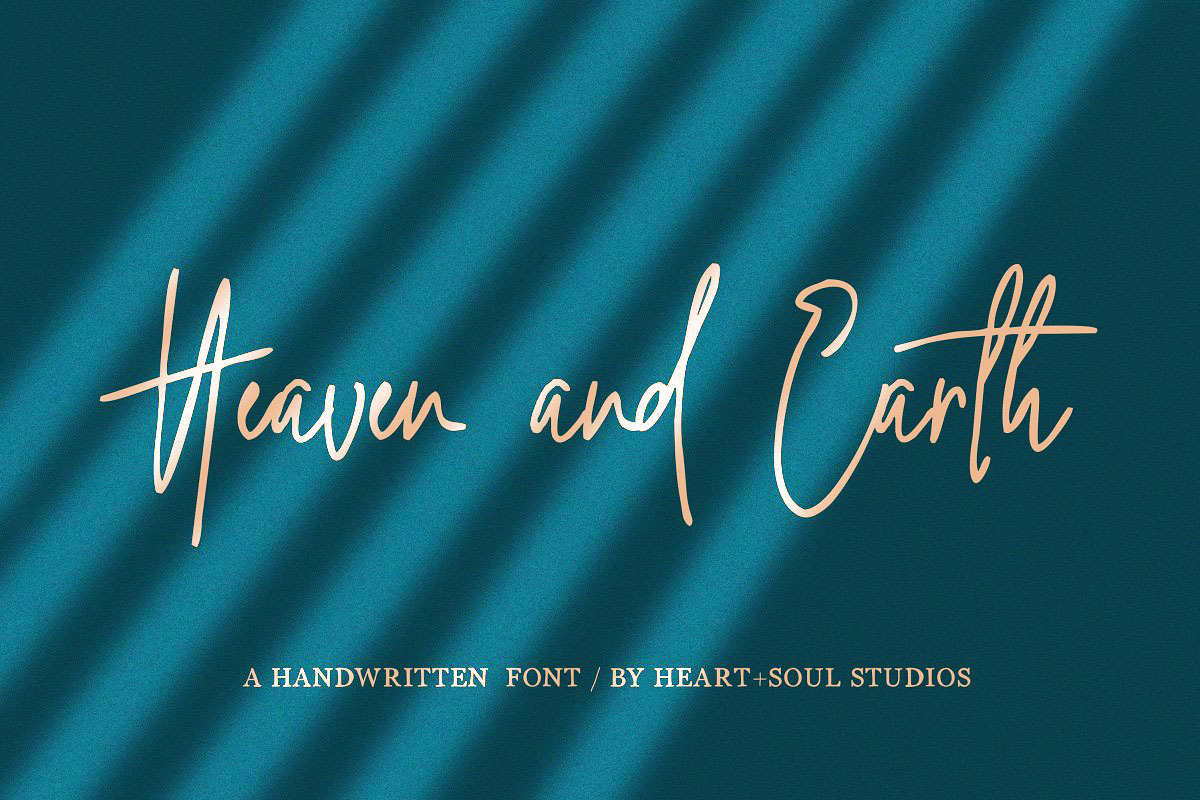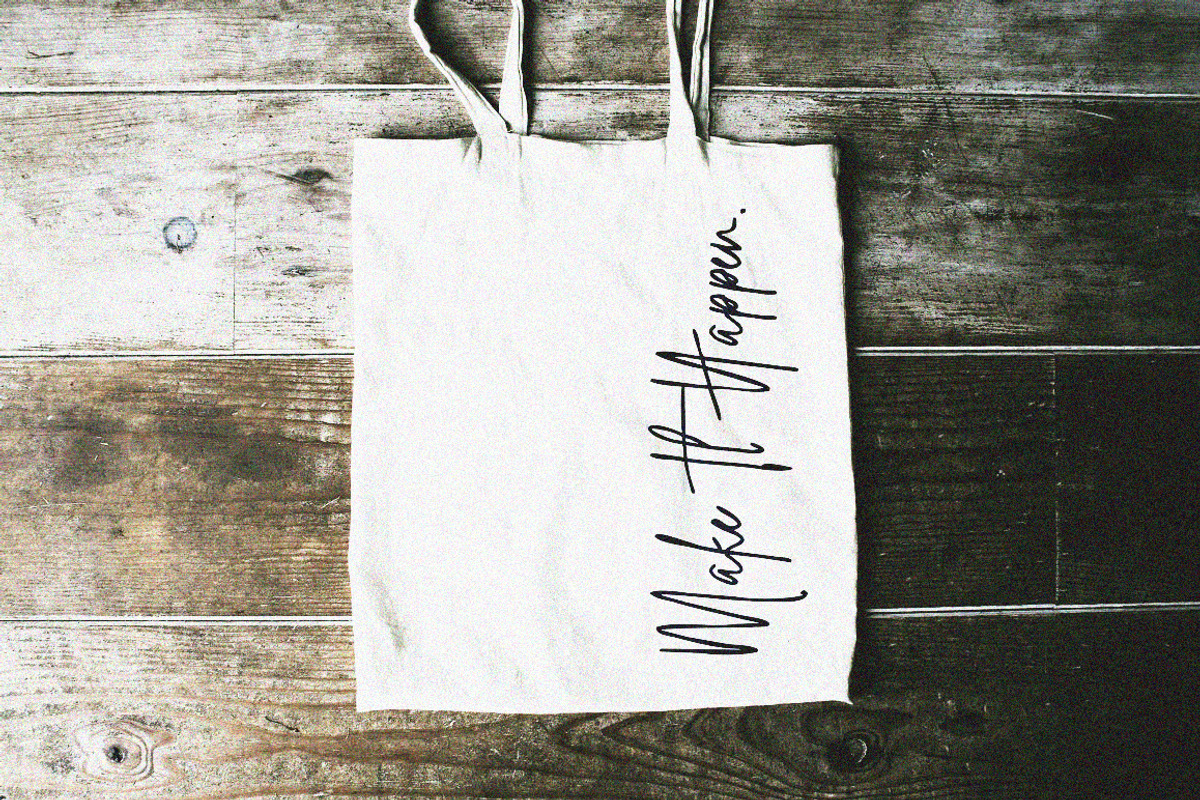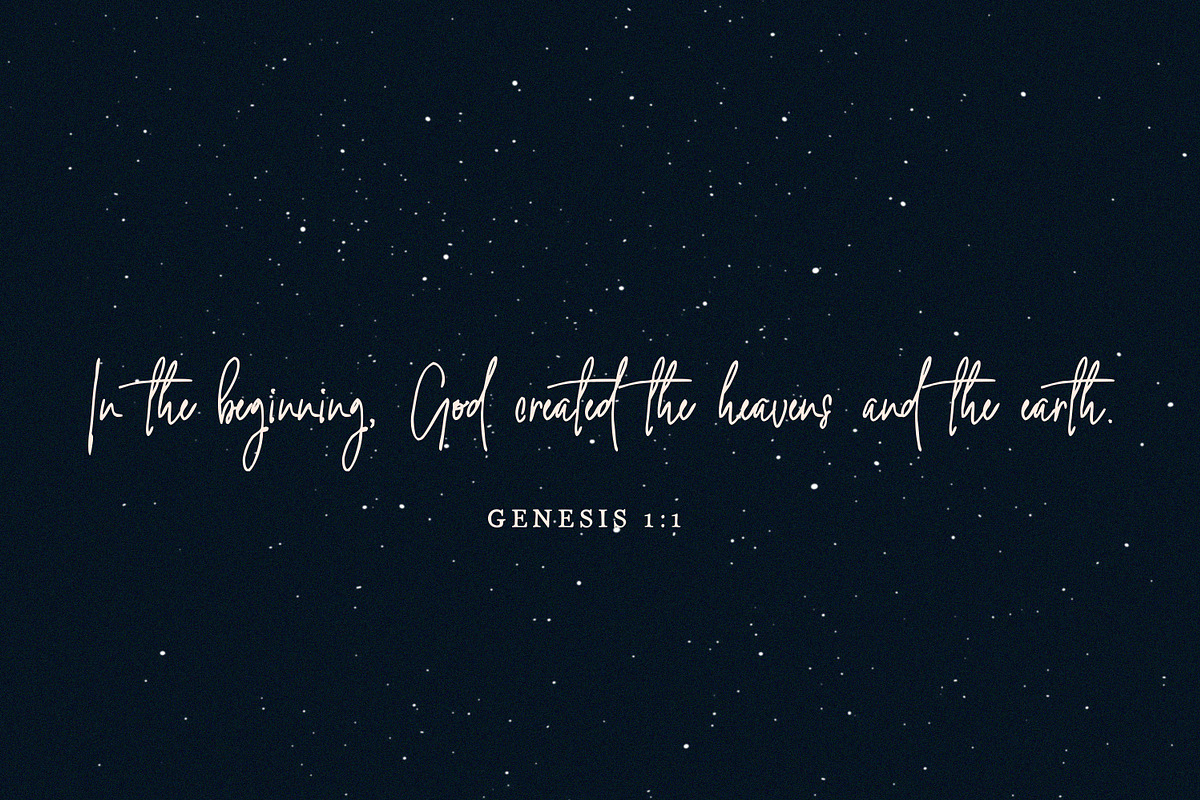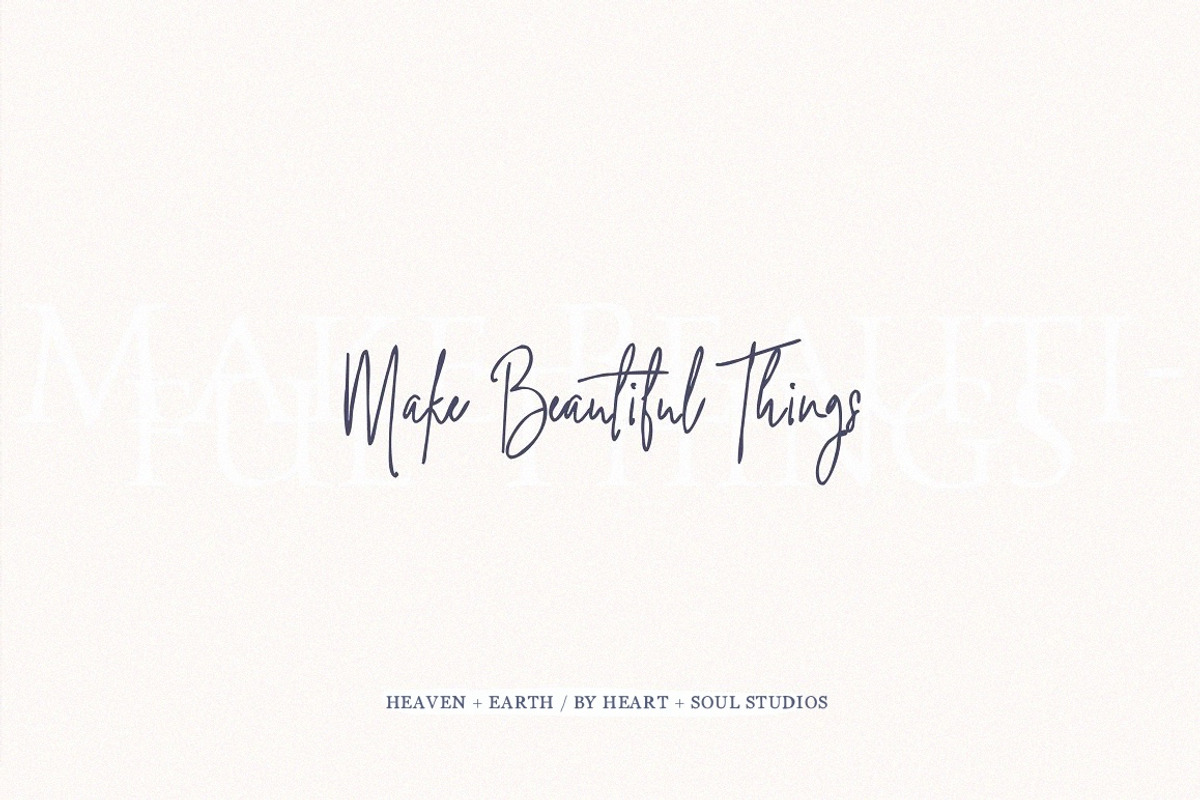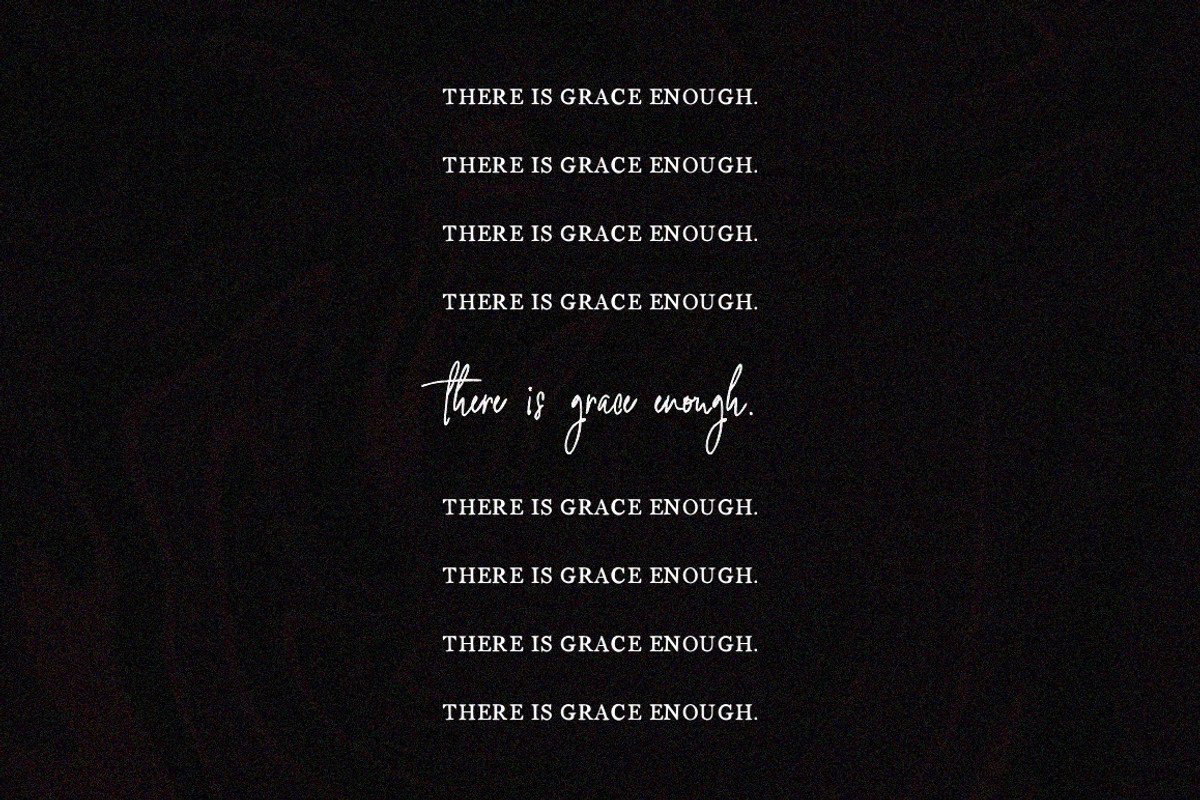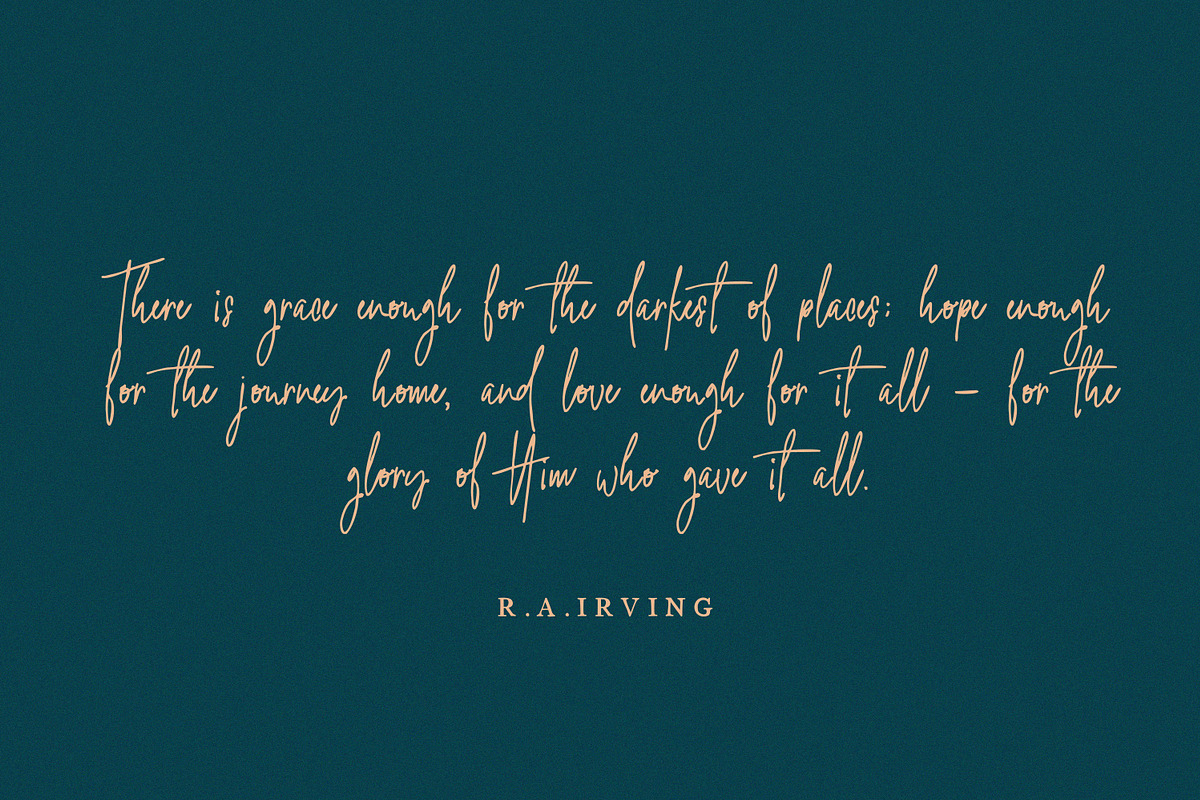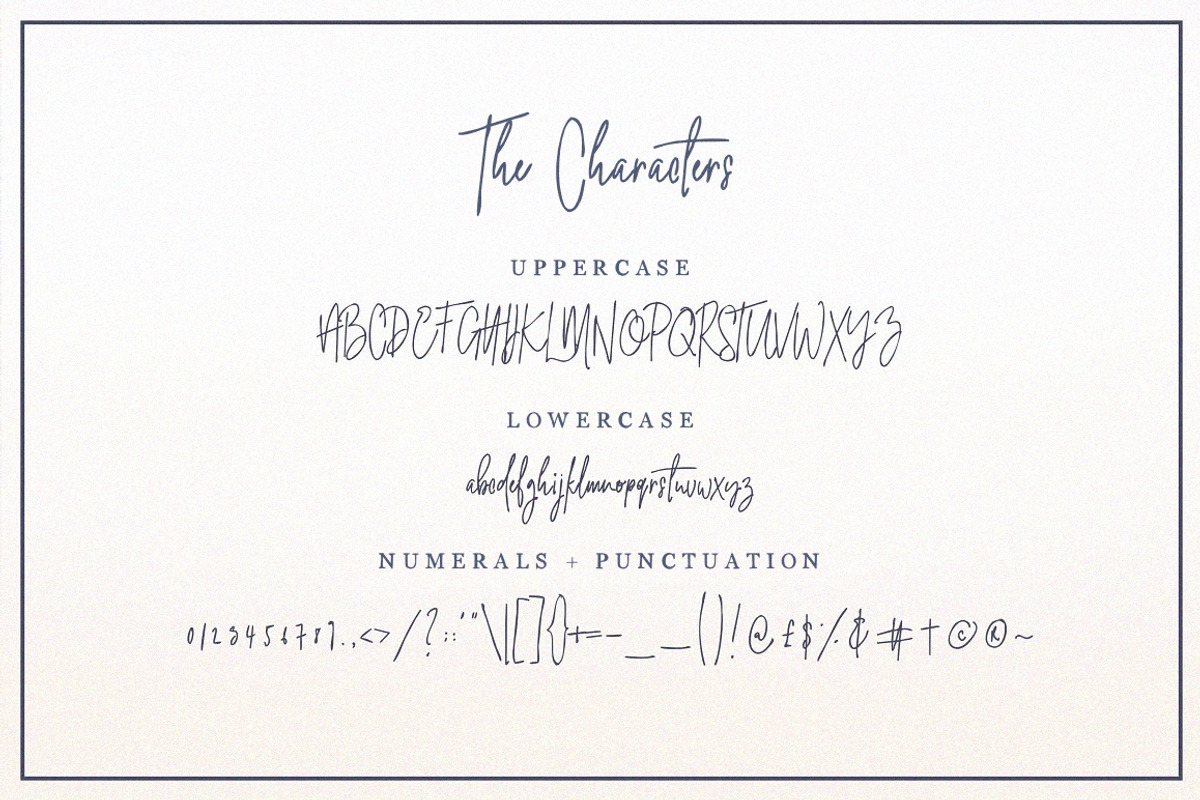
Heaven + Earth | Handwritten Font
Inspired by the Truth of life and the wonder of it all, Heaven and Earth is a signature-style hand-written font, designed to be elegant, modern and fashionable.
For the hopeful and the heartfelt.